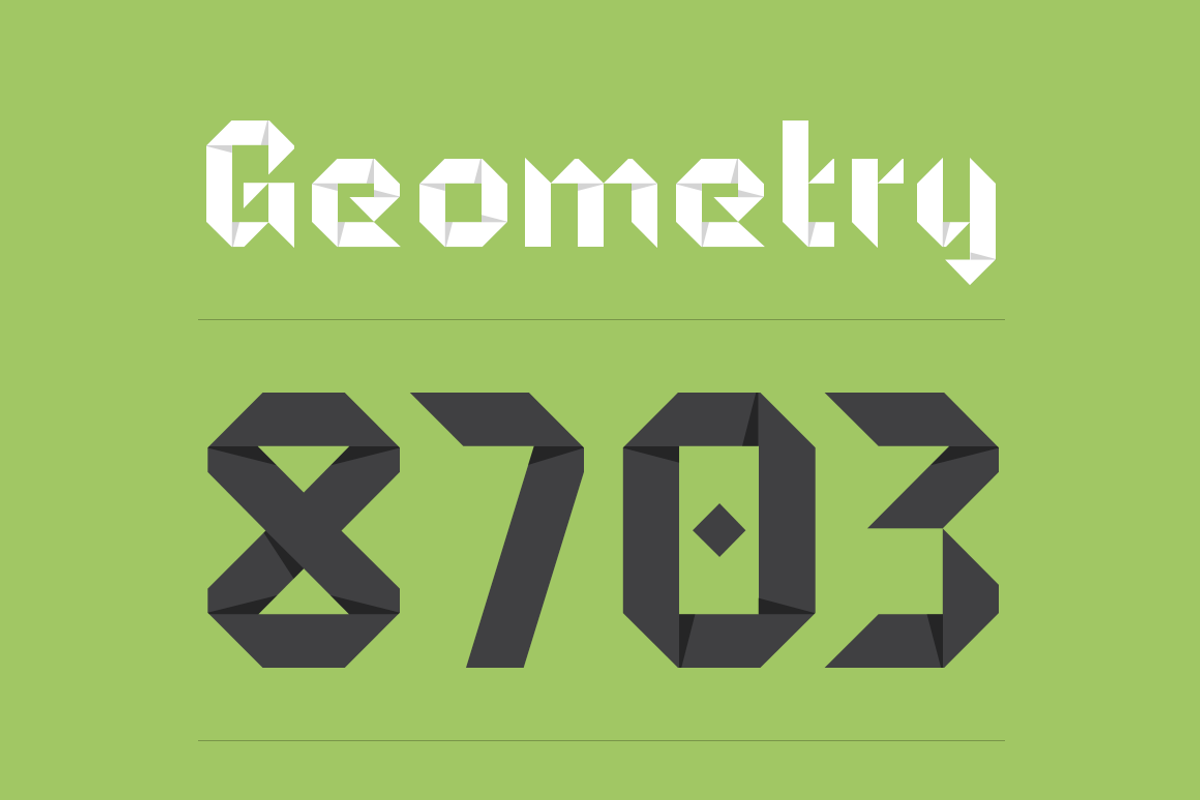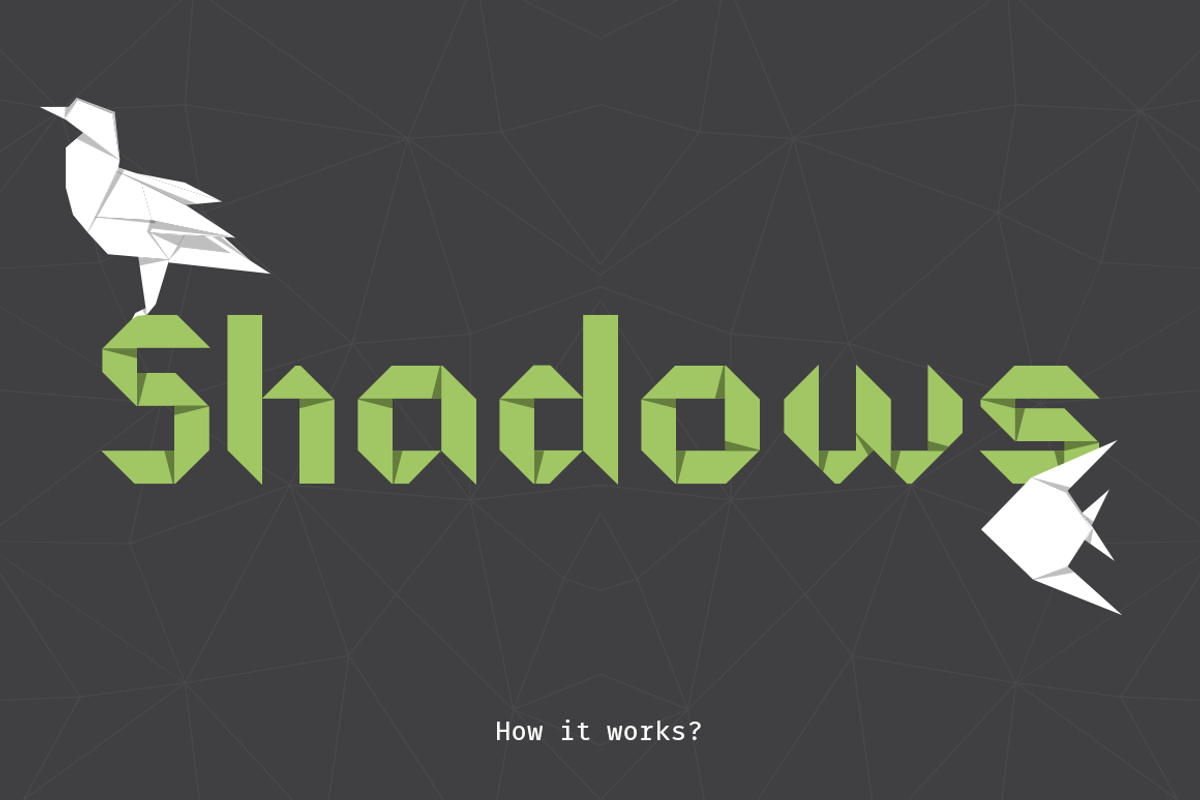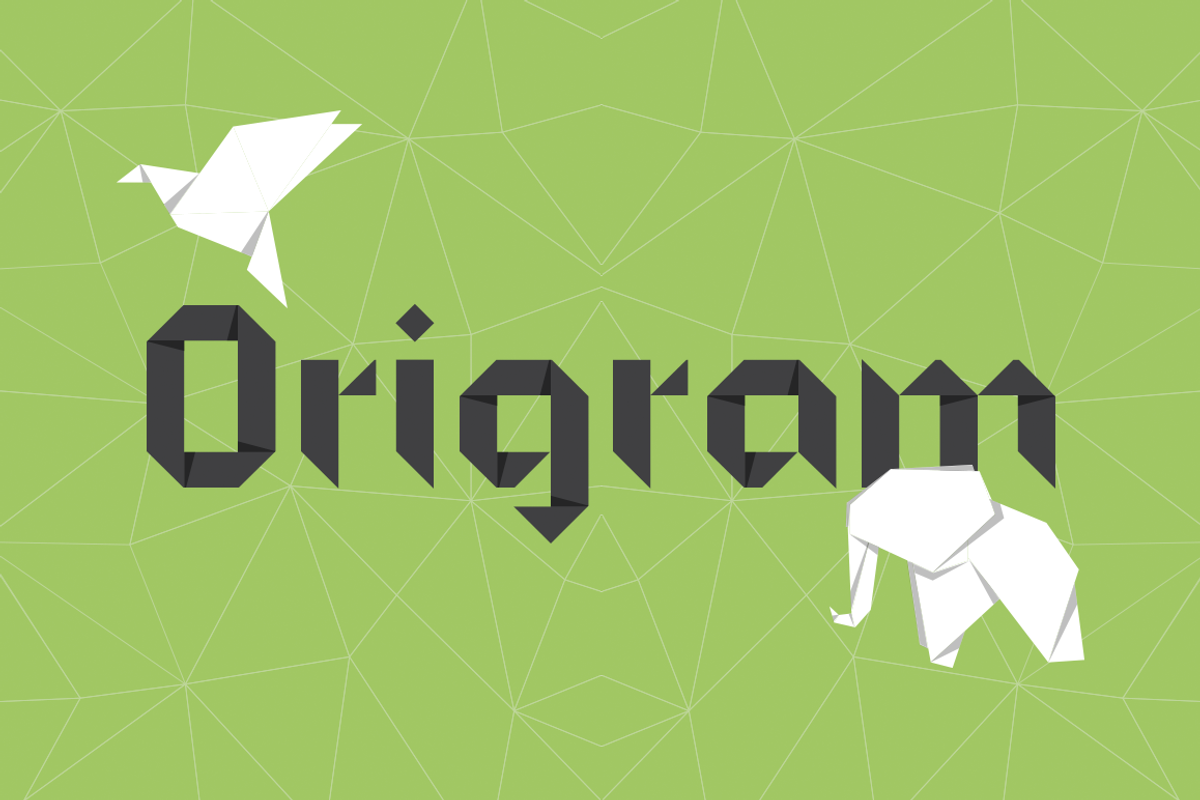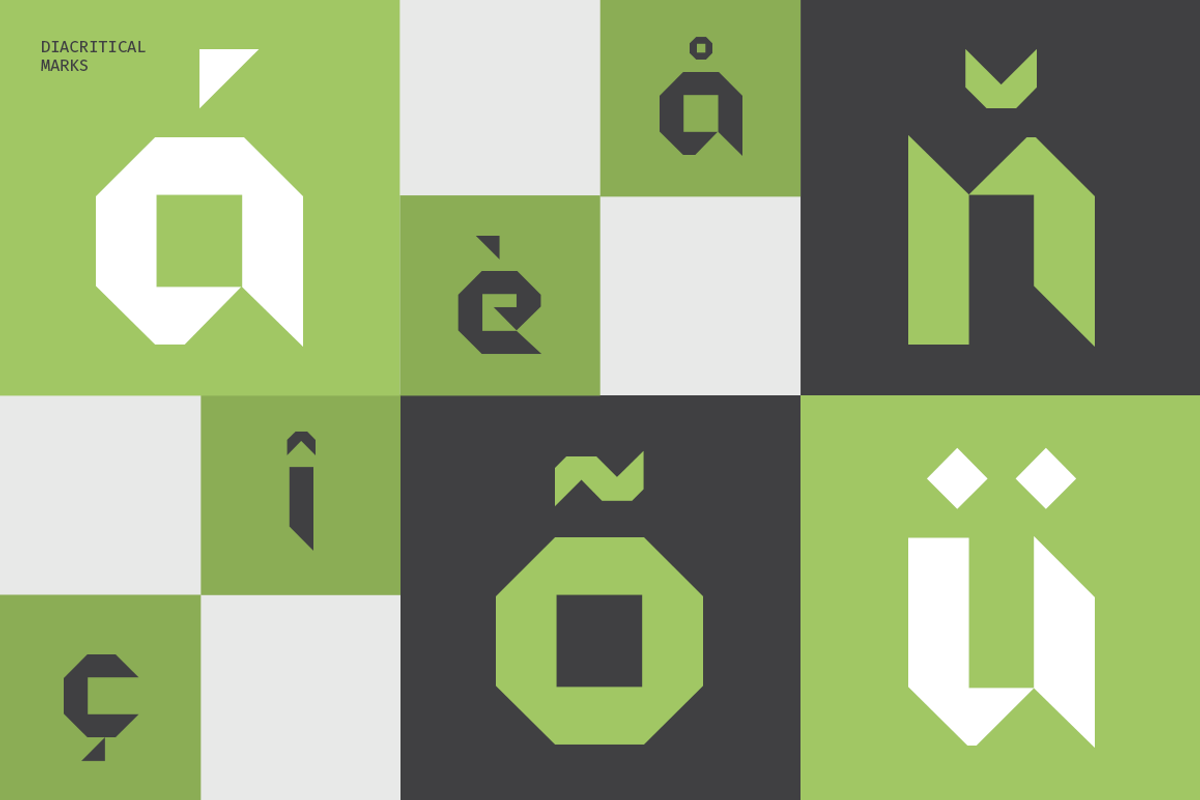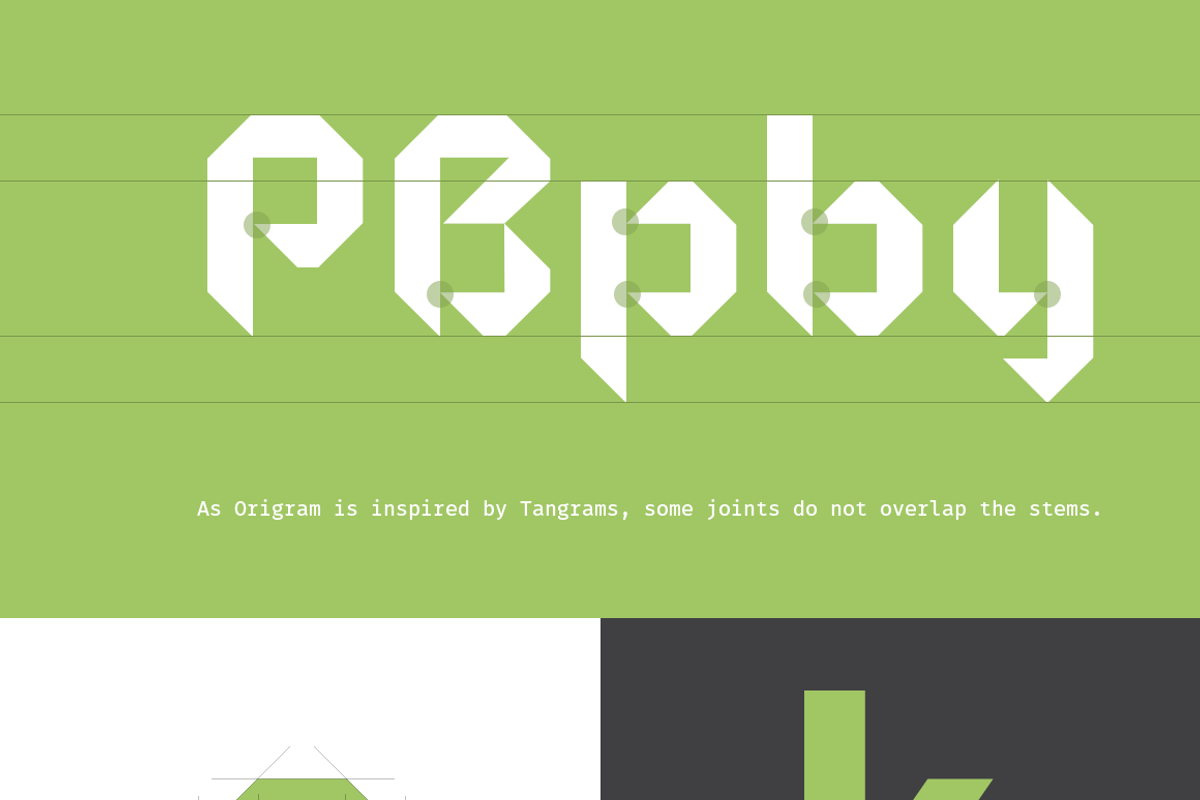
Origram Pro Typefamily + Free Bonus
Origram Pro is the full version of Origram Free Font, a font with over 109k downloads, and counting! This font was already featured in dozens of websites and Design Blogs. I decided to remake this font, smoothing out a few rough edges — so to speak — and adding value to the end result, with several different interesting tweaks and updates.
Inspired in the Origami and Tangram tradition, the basic shape is an octagon. Geometrical and regular, resulting in a neat and captivating display font. Not particularly conceived to be used in common text, this stylized font will add value to any large scale image within the realm of logos & branding, outdoors, packaging, titles, magazines, posters, signs, shirts, scrap-booking... Your imagination is the limit.
This display font comes now with Uppercases, updated Lowercases, Numbers, and a slew of new Diacritic Marks and Punctuation Marks. A large number of special characters was included in the package, enriching the font's versatility and usability.
Glyph coverage: Western Europe, Central Europe, Baltic, Turkish and Romanian.